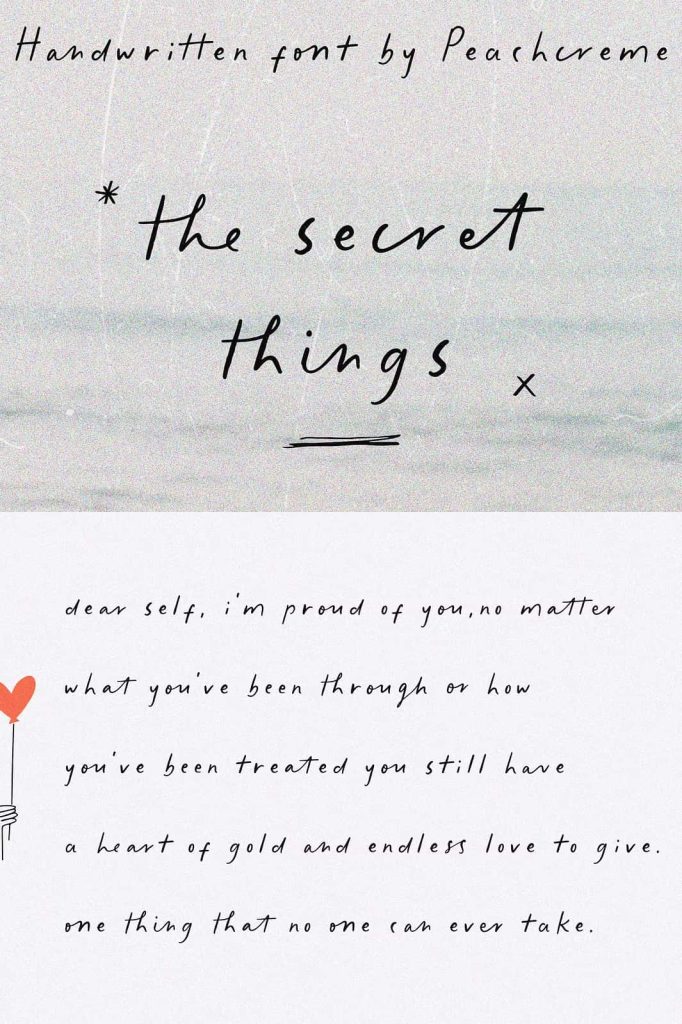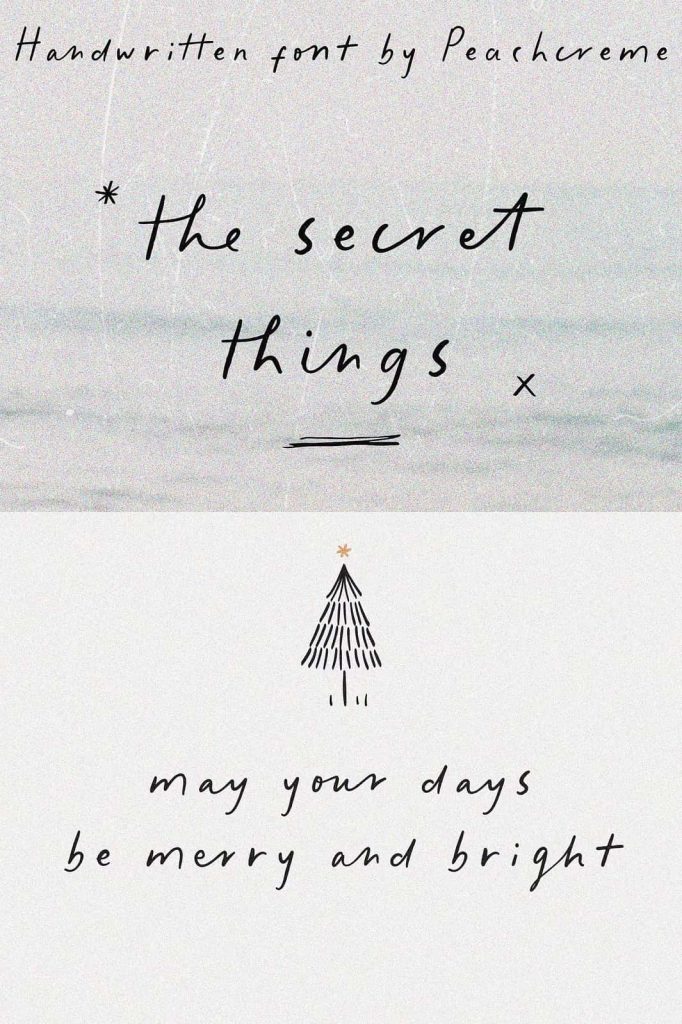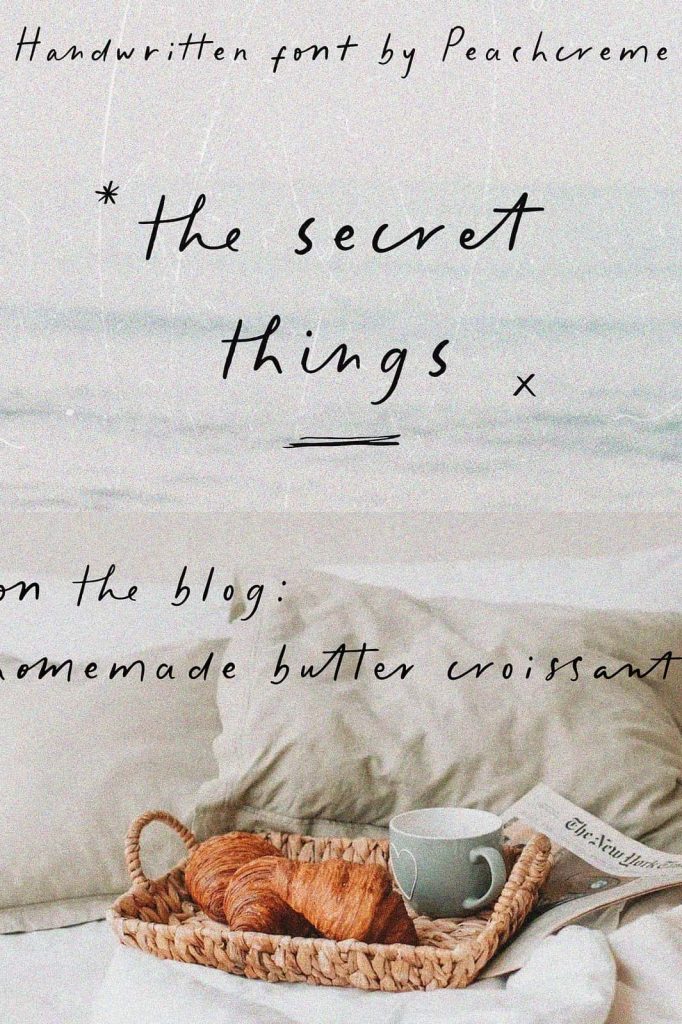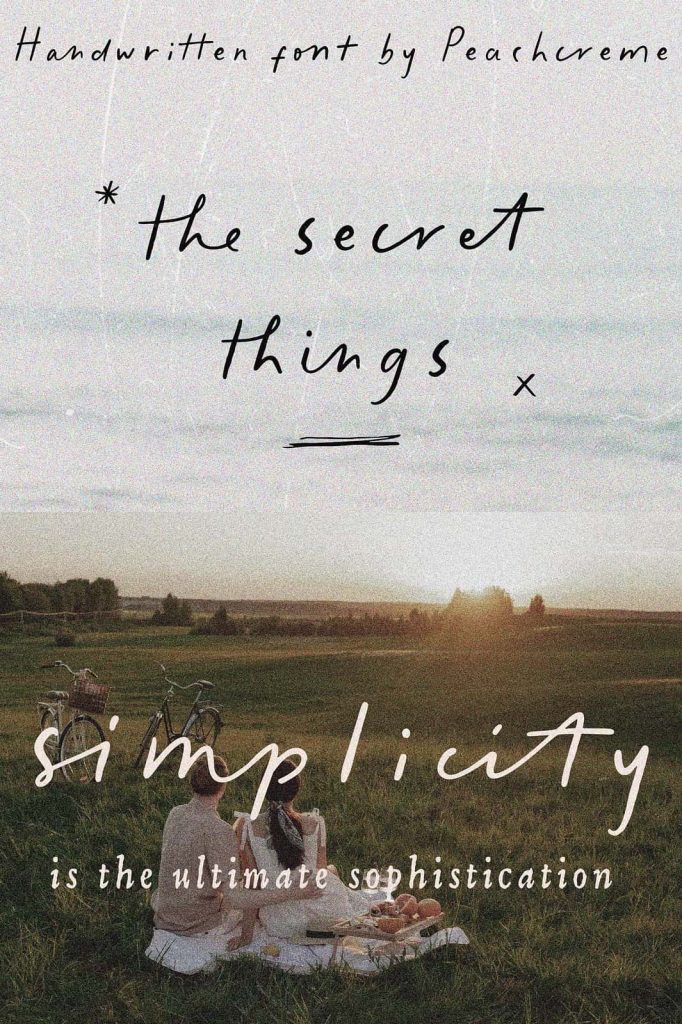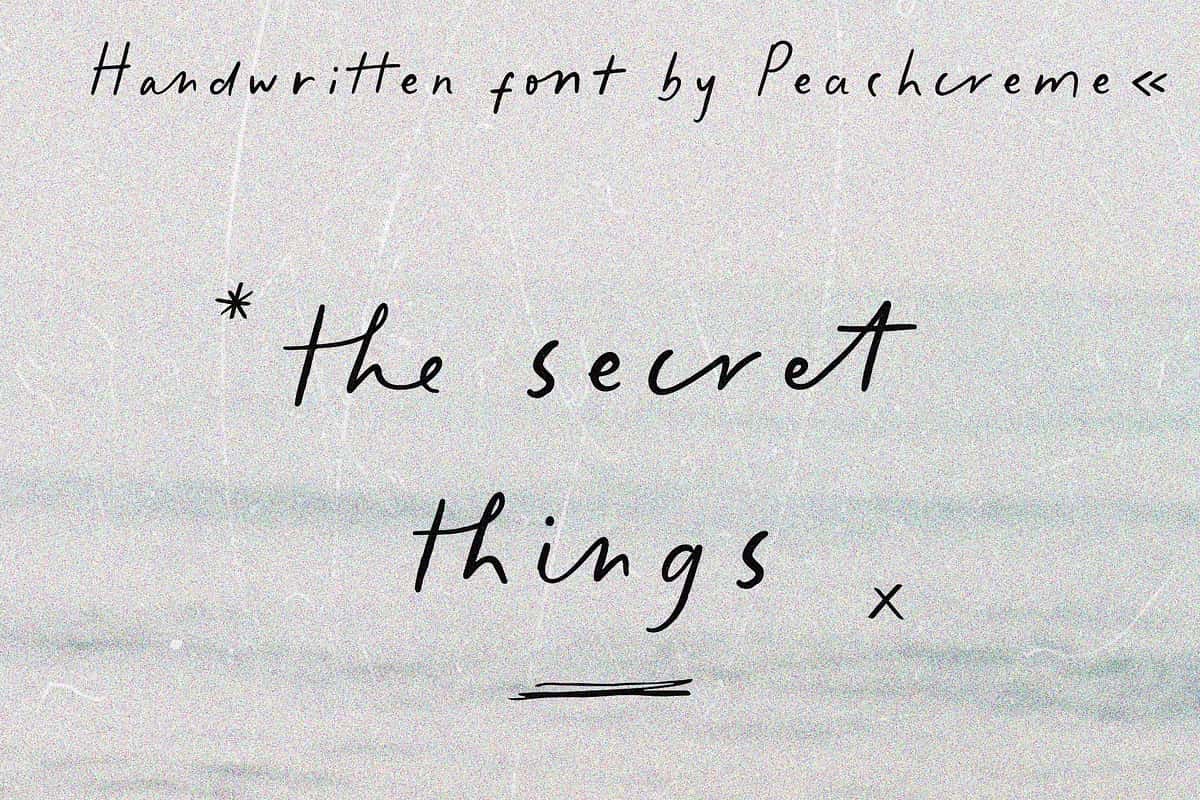
The Secret Things Script Font – Natural Handwritten Elegance for Creative Design
The Secret Things Script Font is a beautifully expressive typeface that captures the effortless charm of natural handwriting. Designed to bring warmth, creativity, and authenticity to your projects, this script font gives your designs a handcrafted feel that stands out. With its smooth flow and artistic rhythm, The Secret Things adds an instant touch of organic sophistication to everything from branding and invitations to packaging and social media graphics.
This elegant and versatile typeface is more than just a font—it’s a storytelling tool. With 45 unique ligatures, The Secret Things Script allows you to create writing that looks genuinely handwritten, giving each design a personal and artistic touch. It’s the perfect choice for designers who want to infuse emotion, character, and authenticity into their typography.
A Handcrafted Script Font That Feels Real
The Secret Things Script Font was designed to mimic the natural imperfections and beauty of real handwriting. Its flowing lines, dynamic connections, and subtle variations make it look like it was written with a calligraphy pen or brush. Each curve was crafted to evoke human warmth and creative energy, resulting in a design that feels both personal and professional.
Unlike standard digital fonts, The Secret Things embraces the organic nature of handwriting. The letters connect fluidly, and the variety of ligatures ensures your text never feels mechanical or repetitive. Whether you’re writing a heartfelt quote or designing an elegant logo, this script font enhances the human touch in your typography.
Perfect for a Wide Range of Creative Projects
Versatility is one of The Secret Things Script Font’s strongest features. Its natural, handcrafted quality makes it ideal for multiple creative uses. Designers love it for projects that require warmth, sophistication, or a sense of authenticity. Whether you’re working on personal branding, digital content, or printed materials, this script font adapts beautifully to every medium.
Popular Uses for The Secret Things Script Font
- Logo Design: Create elegant, memorable logos that reflect creativity and originality.
- Wedding Invitations: Add a romantic, personal touch to invitations, menus, and event stationery.
- Branding and Packaging: Give your brand a sophisticated, handcrafted aesthetic that builds emotional connection.
- Social Media Design: Design captivating posts and quotes that stand out with authentic handwritten style.
- Greeting Cards and Posters: Bring warmth and artistry to any message or decorative layout.
Each of these applications highlights The Secret Things Script Font’s ability to bring design to life. Its fluid style transforms ordinary text into something expressive, emotional, and visually captivating.
Features That Make The Secret Things Script Stand Out
What sets The Secret Things apart is its attention to detail. Every letterform, stroke, and ligature was designed to create a seamless, realistic handwritten look. Its ligature system adds depth and variety, ensuring that no two words look exactly the same.
- 45 Beautiful Ligatures: Automatically combine letters for a natural, handwritten flow.
- Authentic Handwritten Feel: Designed to mimic organic strokes and fluid movement.
- High Readability: Balanced letterforms that maintain legibility across all sizes.
- Versatile Use: Works beautifully in both digital and print environments.
- Elegant Flow: Smooth connections that enhance aesthetic appeal and visual harmony.
Each of these features helps you achieve a truly bespoke look in your designs. The Secret Things Script Font gives you the power to craft designs that feel alive—full of personality, emotion, and natural grace.
Bring Authenticity to Your Typography
In a world full of digital precision, The Secret Things Script stands out for its human touch. Its imperfect beauty adds warmth and depth, making it ideal for brands and creatives who want to connect with audiences on a more emotional level. Every stroke tells a story, and every ligature adds movement and rhythm to your design.
This font is not only beautiful but also practical. Its flowing forms and balanced proportions make it adaptable to multiple uses. You can use it as a headline font to create stunning visual impact or as a supporting script to add flair to your compositions. Wherever you use it, The Secret Things Script Font ensures your typography feels genuine and expressive.
Why Designers Choose The Secret Things Script Font
Designers love The Secret Things Script for its combination of natural handwriting and technical excellence. It bridges the gap between organic expression and digital precision. Its ligature system provides endless possibilities for unique combinations, allowing you to create designs that look custom-made every time.
Whether you’re working on luxury branding, wedding stationery, or social media content, The Secret Things Script Font helps your typography stand apart. It’s a favorite among designers who want to add personal flair and visual harmony to their work without compromising on readability or quality.
Conclusion
The Secret Things Script Font is a natural, elegant, and expressive typeface designed to give your work a handwritten touch. With 45 ligatures that make your writing feel truly unique, it’s perfect for branding, invitations, packaging, and more. Add sophistication, personality, and authenticity to your typography with The Secret Things Script—your secret to creating design that feels beautifully human.